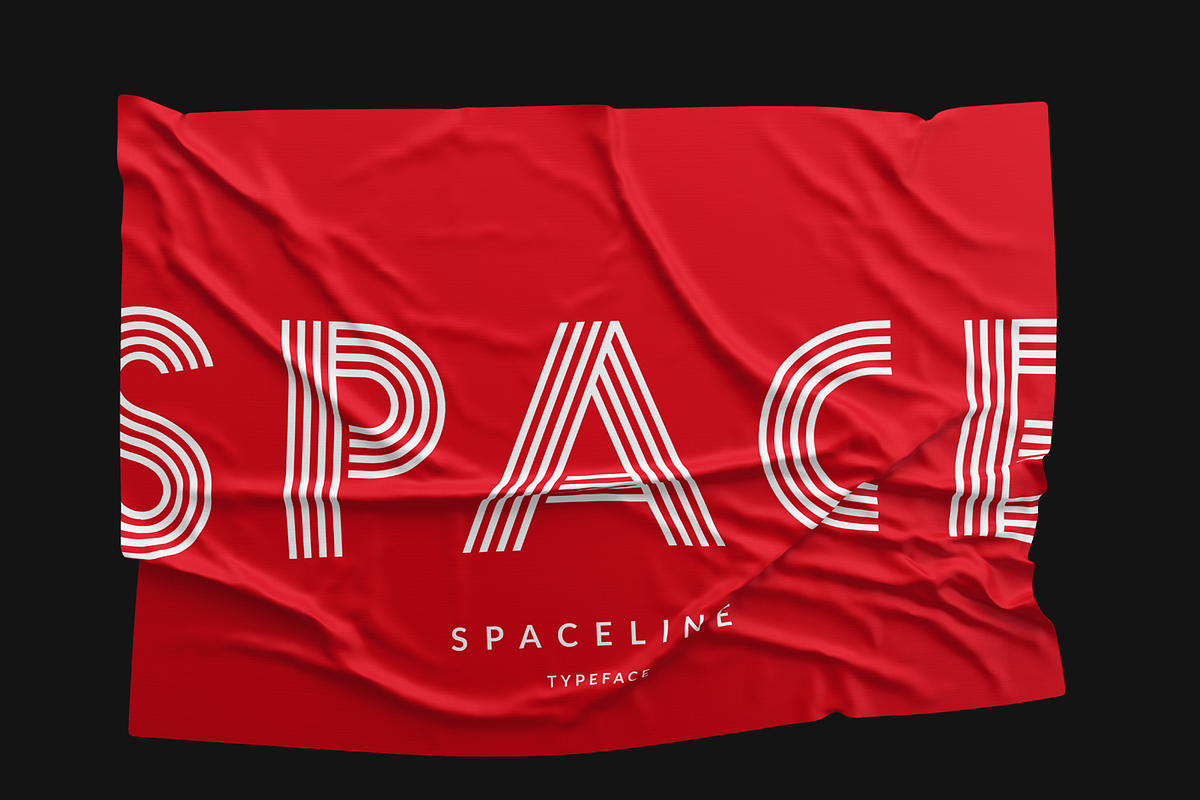
Spaceline Font Free Download is a sleek, futuristic typeface designed with clean lines and minimalistic flair. Perfect for sci-fi themes, tech branding, digital products, posters, gaming graphics, and space-inspired visuals, Spaceline brings a modern edge to any design that needs a high-tech, contemporary look.
Crafted with precision, Spaceline Font Free Download features geometric shapes, sharp angles, and a streamlined style that enhances both readability and visual impact. Its futuristic design language makes it an excellent choice for UI/UX projects, mobile apps, and bold digital headers.
Whether you're building a brand in technology, entertainment, or innovation, Spaceline provides a strong typographic voice that communicates progress and creativity. It pairs perfectly with minimalist sans-serifs or light-weight fonts for contrast and visual balance.